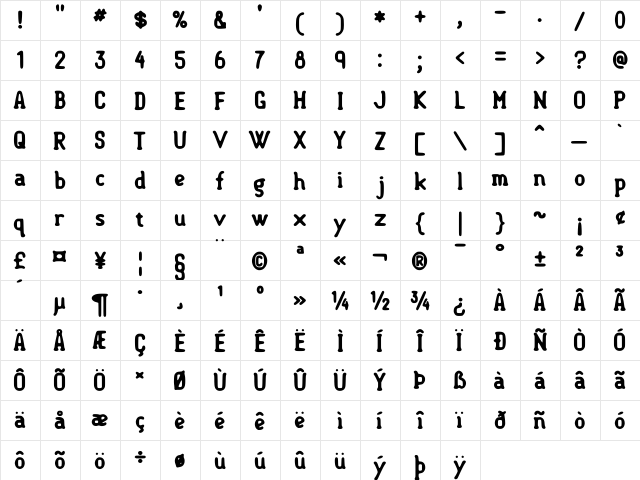
Semi-Sweet Bold
| Designer | Walter E Stewart |
Design Context for Semi-Sweet Typeface
Semi-Sweet takes a measured approach to typography — its balanced proportions and neutral character make it a reliable workhorse for both digital and print work. The heavy weight commands attention and anchors typographic hierarchies.